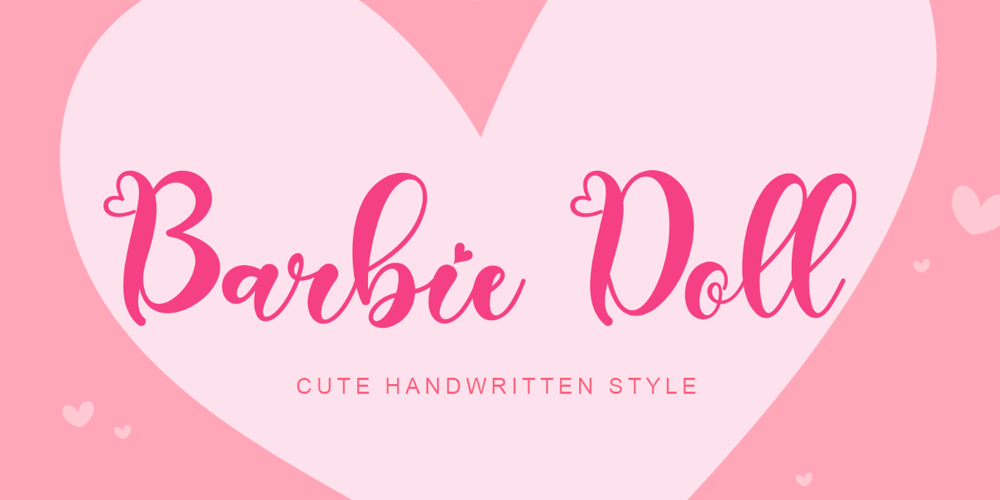
Barbie Doll
Barbie Doll font
Barbie Doll Font Family was designed by Isroni Yoga Prasetya and published by Yoga Letter. Barbie Doll contains 1 styles and family package options. “Barbie Doll” is a cute and lovely handwritten font. This font is equipped with uppercase, lowercase, numerals, punctuation, ligatures, and multilingual support. It is suitable for promotion, social media, business branding, Barbie, weddings, engagements, birthdays, and others.